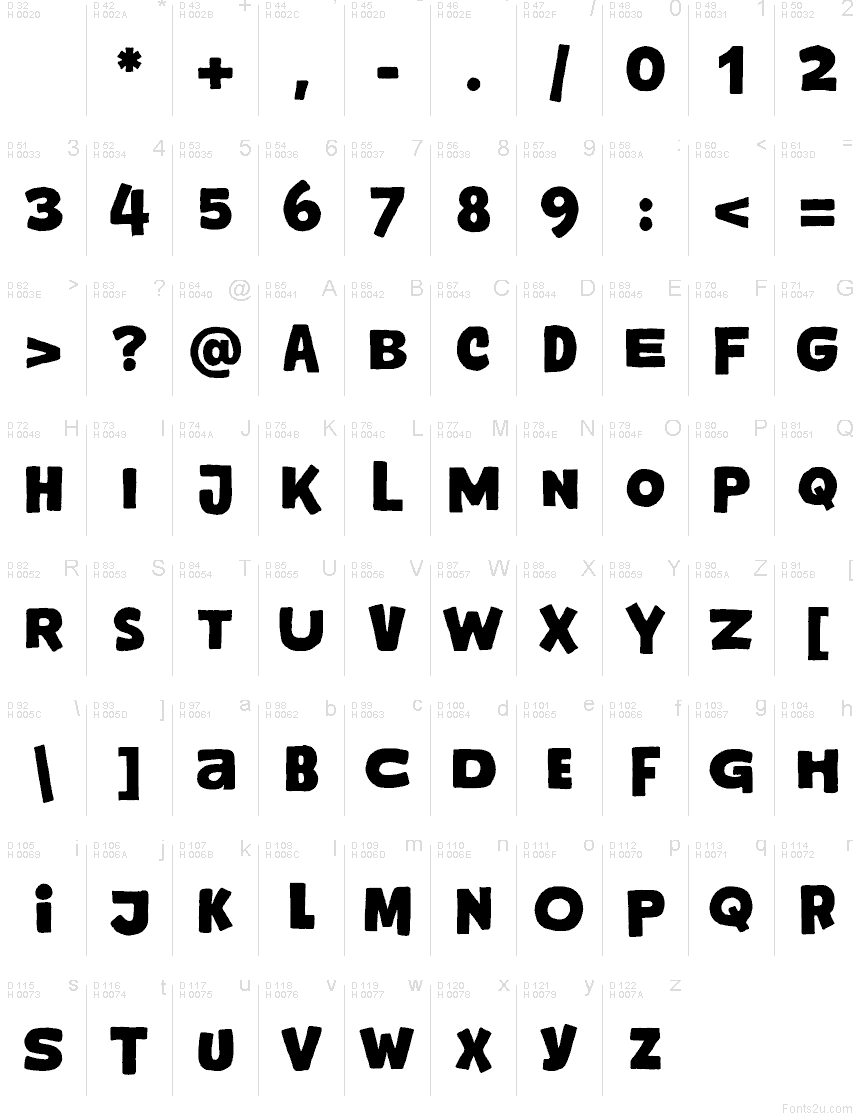
Emaro font by Afkari Studio is a free comic display typeface with a bold, inky presence and soft, hand-drawn edges. The chunky letters feel like they’ve been brushed in thick marker, slightly uneven in width so the text wiggles with energy rather than sitting stiff on the line. It’s playful without being messy, giving headlines and logos a friendly, approachable voice that still reads clearly at a glance.
Using Emaro, this free font shines on kids’ book covers, game titles, snack packaging, YouTube thumbnails, posters, and fun event branding. Its generous shapes and tight rhythm hold up well at large sizes where you want big impact and a bit of attitude. Pair Emaro with a clean, light sans serif for body text to keep layouts readable while letting the comic style steal the spotlight.